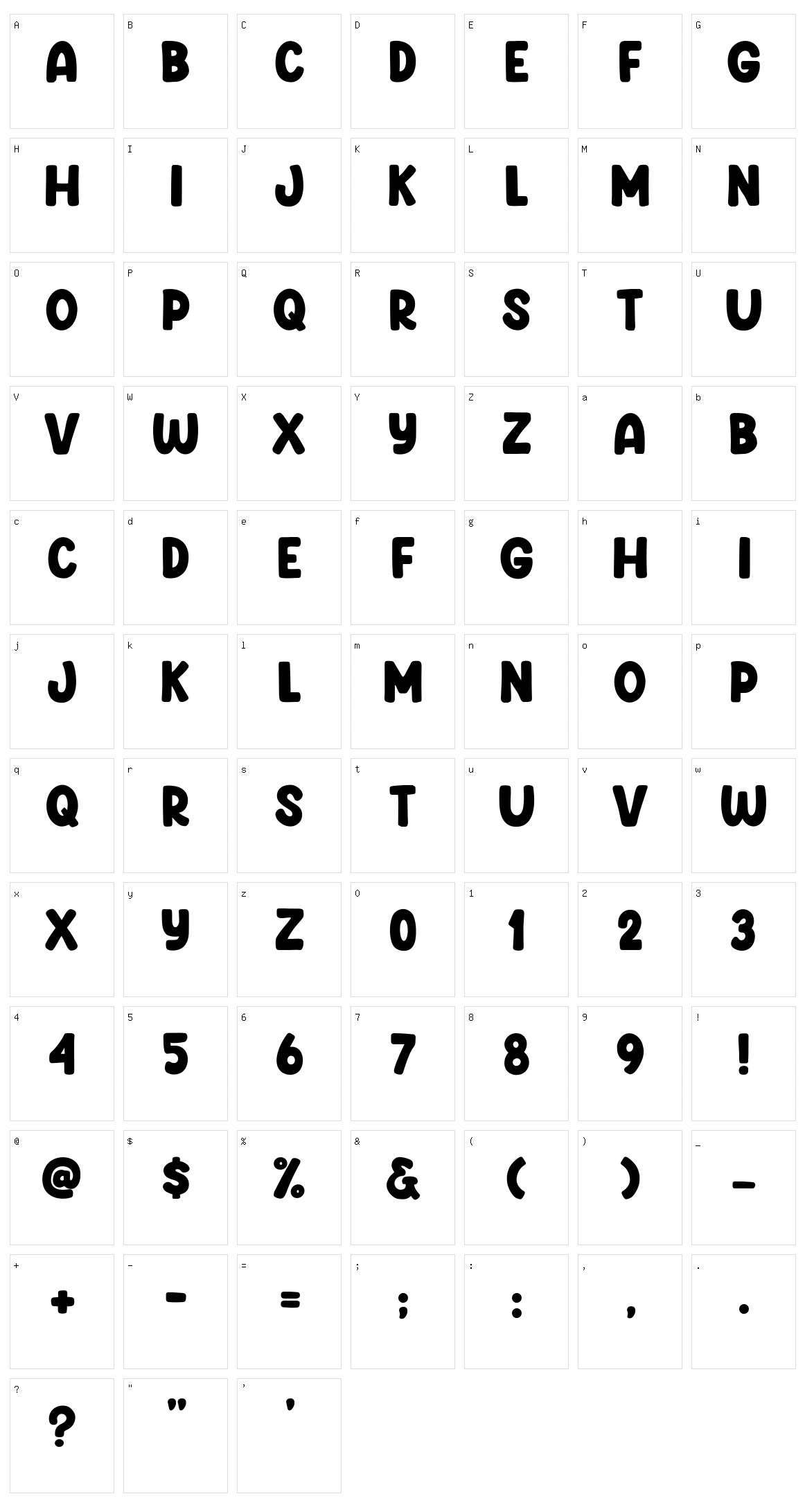
The free font Lemon Days is carefully designed by Khurasan, showcasing a thoughtful balance of creativity and usability and falls under the Cartoon font style. When you download the ZIP file, it contains only 310.35 KB of font files, making it lightweight and quick to download. Please review the license details below to understand permitted usage and distribution rights. If license information is not available, we recommend using this font for personal projects only or contacting the author directly for commercial usage permissions.